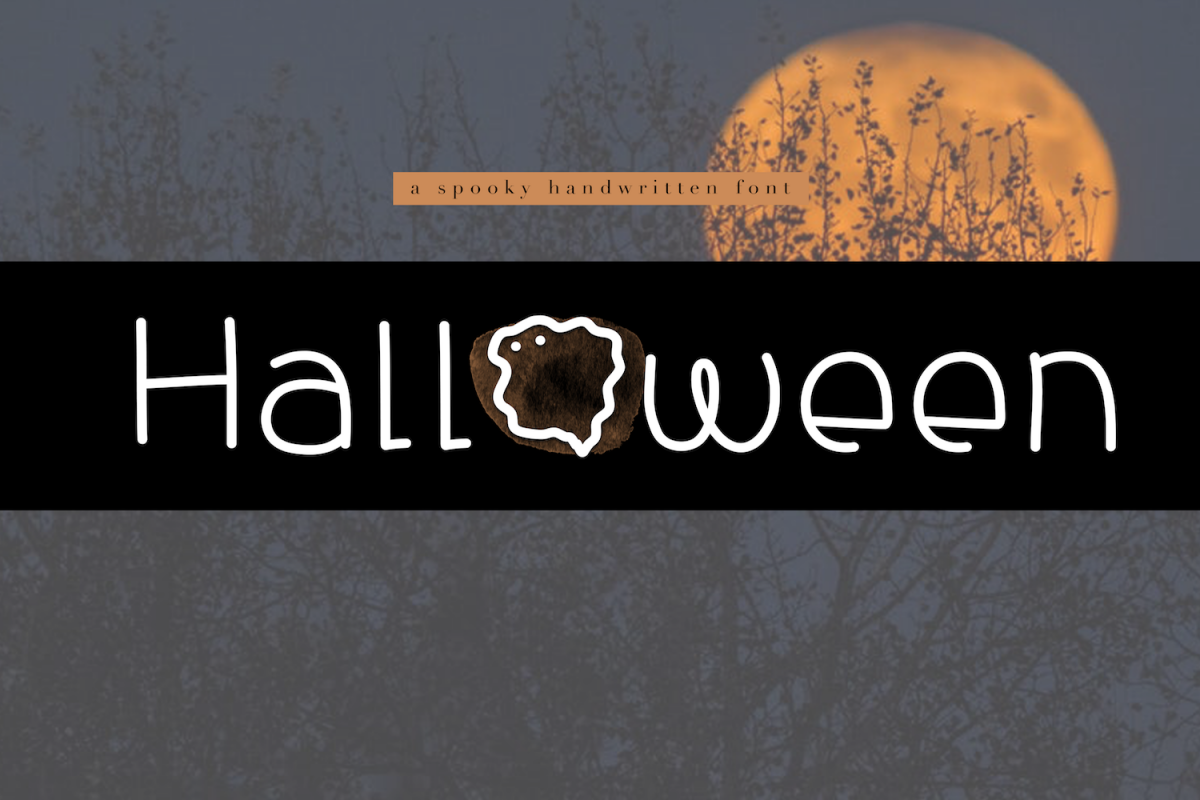
Halloween - A Spooky Handwritten Font
KAHalloween
Halloween is a fun & spooky handwritten font.
The capital O is a ghost and the lowercase o is a pumpkin!
This font is perfect for quotes, headings, blogs, logos, invitations and more!